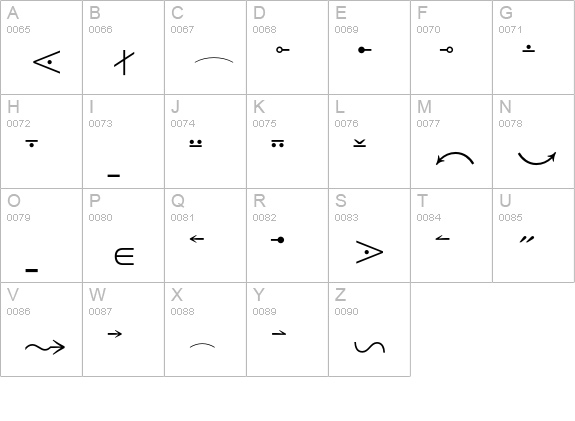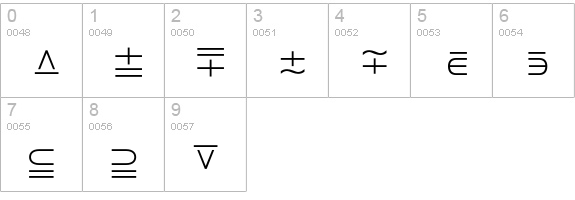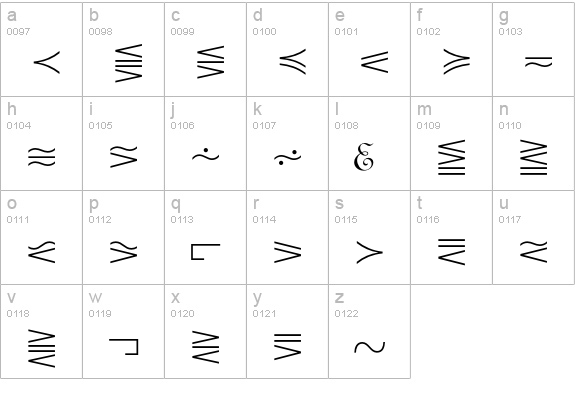
Mathematical Pi 5 Font Details
Mathematical Pi 5 font is a stunning display typeface that combines the elegance of mathematical symbols with a modern and clean design. This font is perfect for those who appreciate the beauty and precision of mathematics, and want to incorporate it into their designs. With its bold and distinctive characters, Mathematical Pi 5 font captures the essence of mathematical equations in a visually captivating way. Each glyph is meticulously crafted to ensure clarity and readability, making it ideal for various design projects, including posters, banners, logos, and more. What sets Mathematical Pi 5 font apart is its versatility. It can be used in both digital and print media, giving you the freedom to express your creativity across different platforms. Whether you are working on a website, an advertisement, or a scientific publication, this font will make your content stand out. One of the best features of Mathematical Pi 5 font is that it is freely available to download at FontsMarket.com. This means that you can access this incredible font without any cost, making it accessible to designers and enthusiasts of all backgrounds. The font file is easy to install and compatible with various design software, ensuring a seamless integration into your creative workflow. So, if you are looking for a unique and visually striking font that embodies the beauty of mathematics, look no further than Mathematical Pi 5 font. Download it for free at FontsMarket.com and let your designs speak the language of numbers and equations in an extraordinary way.